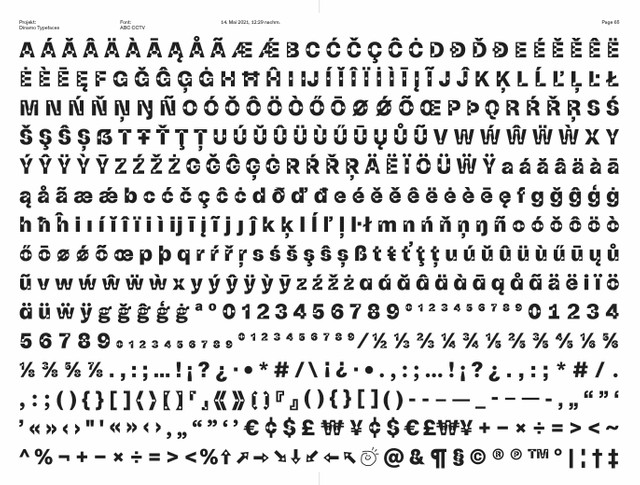
A five weight reinterpretation of light traps. With and without the holes. —
It’s nearly time for the public release of ABC Camera (previously known as “CCTV”), and so we wanted to share it with you first.
ABC Camera existed as a one style, one weight (medium) font for a number of years, living an obscure but happy life holed up (lol) and waiting to be picked up, reconsidered, and extended.
Dinamo member Sascha Bente then took up the task after relocating to Berlin from Lausanne. After a couple of intense months, and with Rob Janes finalizing the mastering and production work, Camera is now a full, five weight family with and without holes.
Origins:
We’ve been fascinated with the idea of updating light traps for our digital times for a long time now. And since ABC Whyte reimagines ink traps for our current age, turning our attention to light traps felt like a natural next direction for us.
Similar to ink traps, light traps originally compensated for the low resolution of early television screens: When the font appeared, the screen’s blur filled in its holes so that each letter looked complete.
We first encountered light traps in a 1960s typeface for the American TV station CBS, and also when our friend Florian Lamm showed us a sample by Studio Hollenstein from the 1970s (thanks Flo).
Features:
Light traps are such an unintentionally bold visual feature, and so we’ve scaled them up for ABC Camera, and begun to call them holes—as in Swiss Emmental. The font is also available without the holes, bringing it back to full functionality and forming an interesting typeface in its own right.
Overall, ABC Camera is a neutral, toned-down grotesque similar in style to Helvetica but with freer, less strictly defined proportions and a narrower body. We’re very curious to see how people will mix the hole and plain versions together!
Why the name change?
We had created CCTV as part of our contribution for “Shoplifters Magazine”, and the name somehow made sense for that. But nowadays, the connotations that the term “CCTV” carries, ie. surveillance, and governmental and corporate spying, don’t sit well with us. So we settled on ABC Camera instead, clearing the trademark and living much happier ever after.
Camera in Use:
You might recognize ABC Camera from our collaboration with our Utah-based friends Actual Source, whose various projects and products have been Camera’s longstanding first home: JP and Davis () most recently used the hole version for their yellow bookends and a series of New Tendency books designed by Daniel Everett, Hassan Rahim, and Geordie Woo respectively.
Next came Alyar Aynetchi, who used it for his ECAL master diploma project, Closer. ABC Camera later appeared on the sticker sheet of GQ Korea’s 20th anniversary issue by Kiyeol Kim and in the identity of the Biennale Carbone by Clémentine Léon & Gautier Scerra at Service Local. Most recently, Swiss-based Onlab used it for DJ Stringray’s new label MICRON AUDIO (released together with Tresor Records).
2-family overview
The studio’s favourite character
Camera includes 5 sets of alternates, like character variants or rounded punctuation
Each sub-family has 598 characters
Words supposedly spoken during the design process 🙄🙊
WIP: testing hole positions
Camera in early use
In-Use: Biennale Carbone by Service Local
In-Use: by Actual Source x New Tendency
In-Use: Closer by Alyar Aynetchi & ECAL